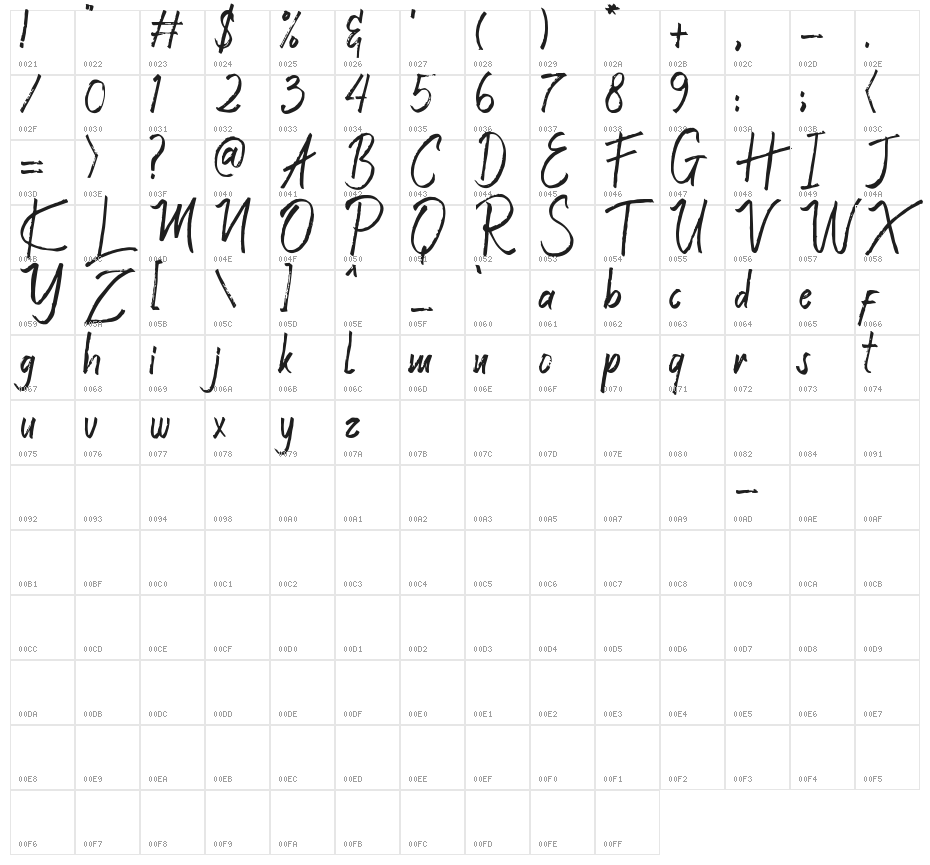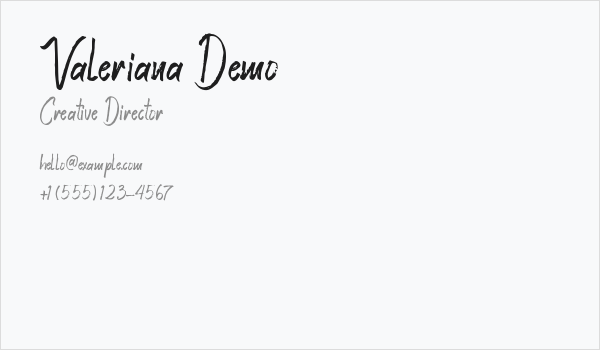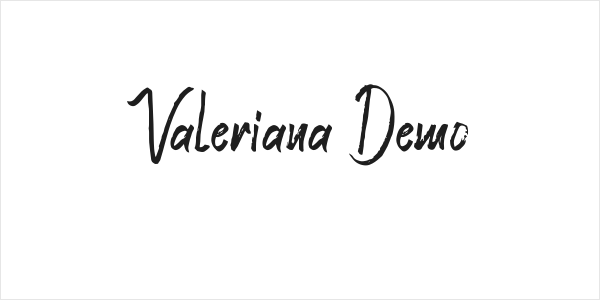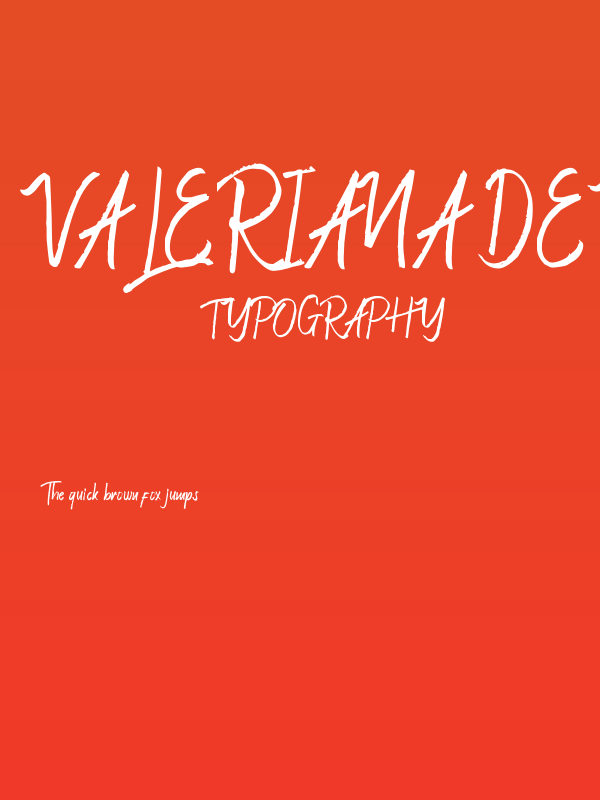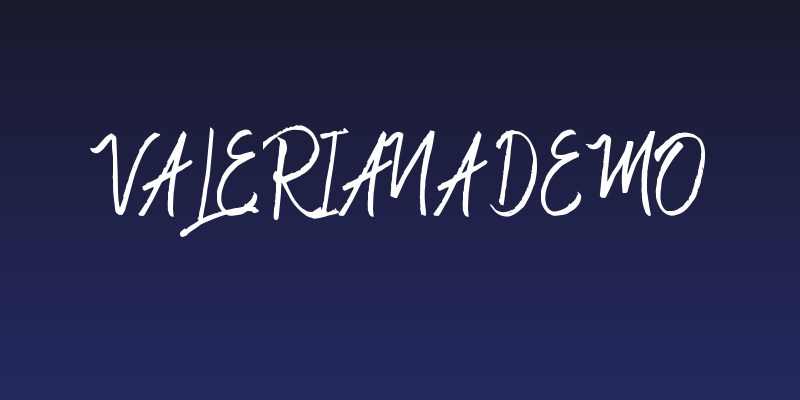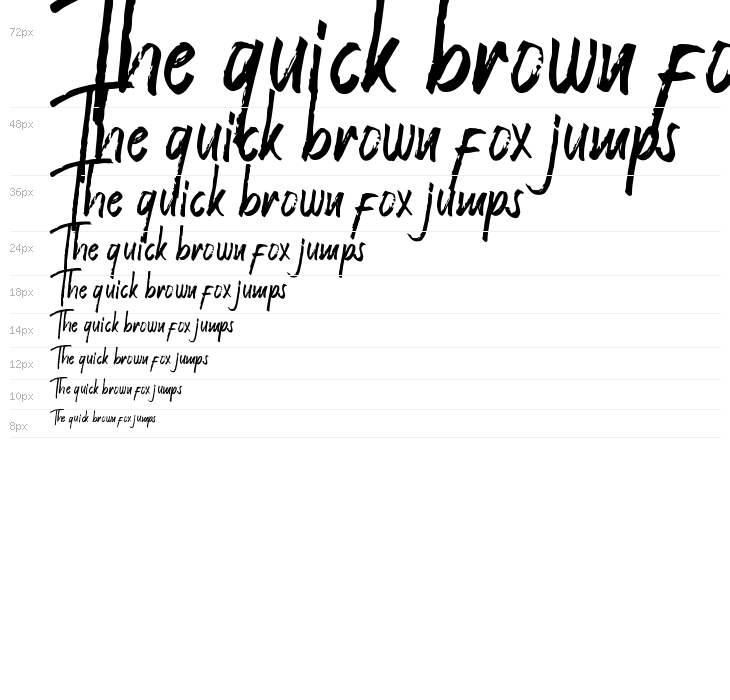
Valeriana Demo Font
Valeriana Demo Description
This font exhibits a dynamic and expressive handwritten style, characterized by its fluid and energetic strokes. The uppercase letters are tall and slightly narrow, with a playful yet sophisticated flair. The lowercase letters maintain a consistent flow, enhancing the font's overall cohesiveness. Numbers and special characters are crafted with the same lively touch, ensuring versatility across various applications. The font's organic appearance makes it ideal for projects that require a personal and artistic touch, such as invitations, greeting cards, and creative branding.
Use CaseLogos, Headlines, Artistic projects
Proposed ProjectsIdeal for invitations, greeting cards, artistic branding, and creative projects.